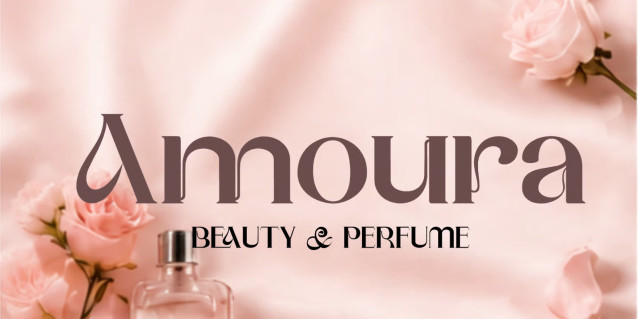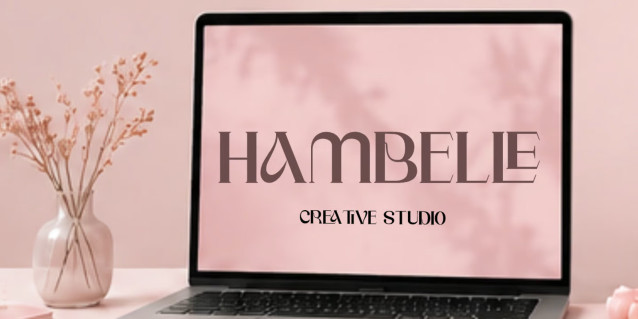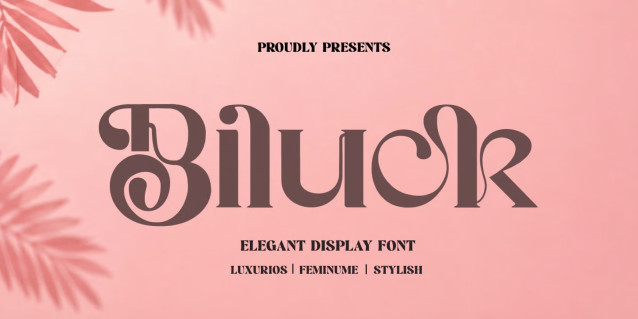
Biluck Font
Biluck is a stylish display font designed to bring a bold, elegant, and distinctive character to your creative projects. With its unique letterforms and expressive details, Biluck is perfect for branding, logos, posters, fashion designs, packaging, invitations, social media graphics, and modern editorial layouts.
Biluck combines a strong visual presence with a touch of sophistication, making it an excellent choice for designs that need to stand out and leave a memorable impression.